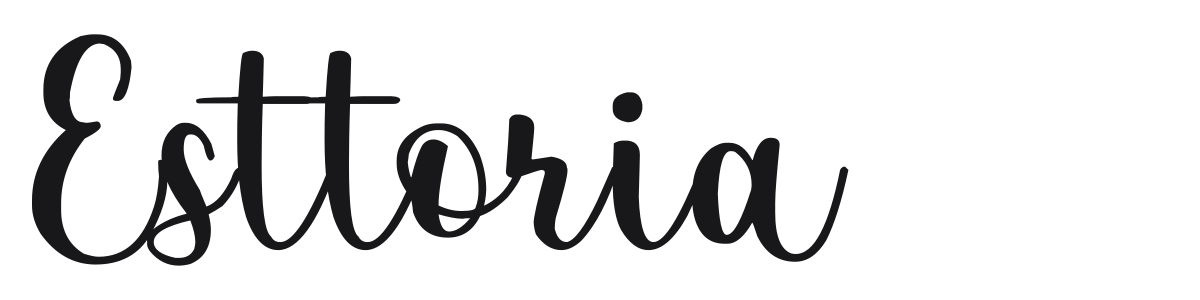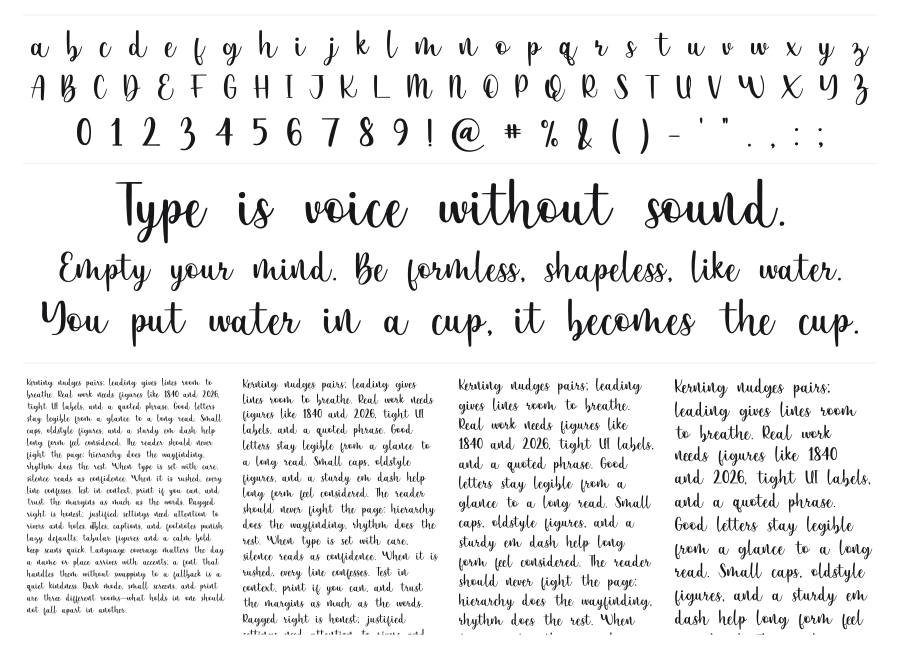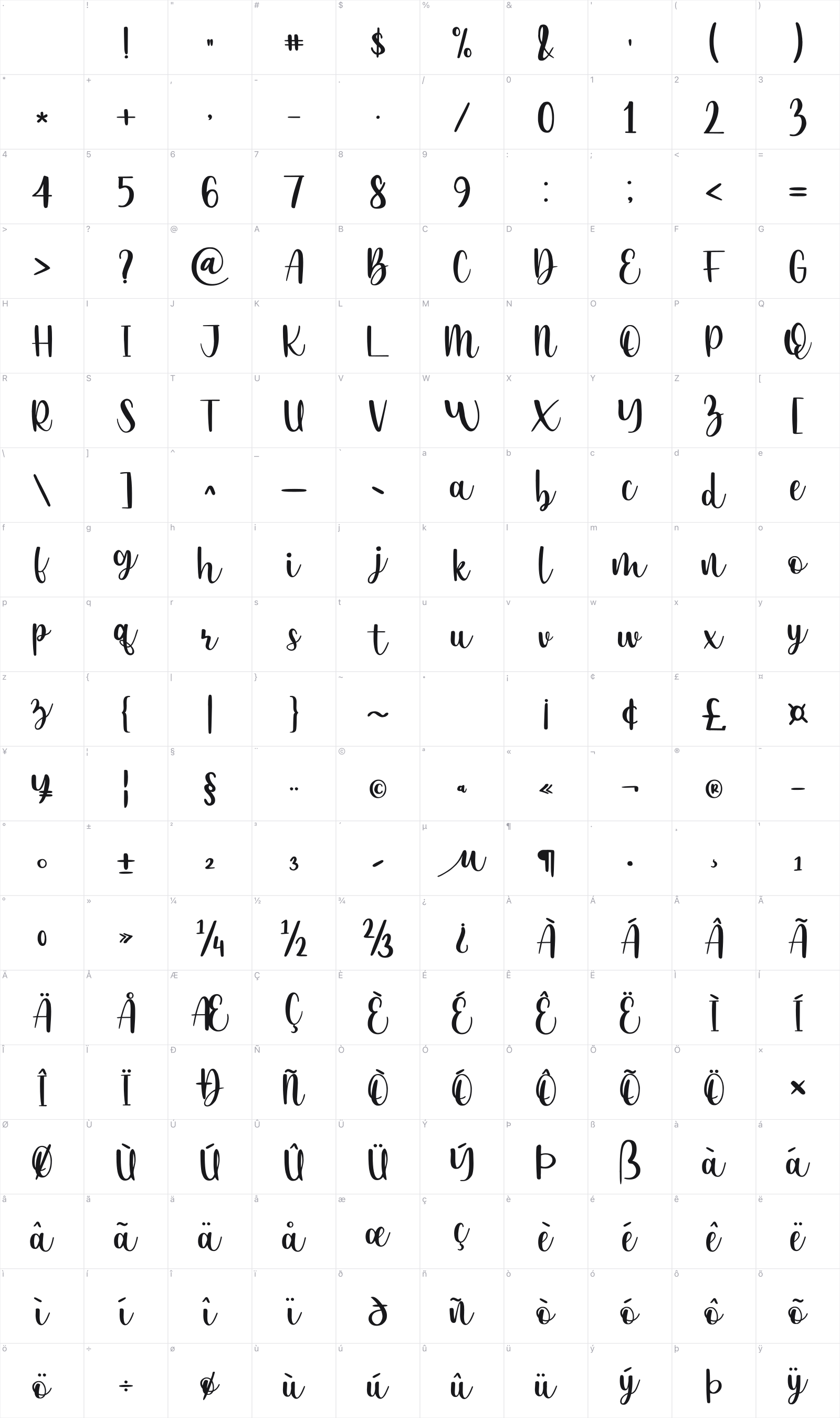
Esttoria
Esttoria is a lively casual script with bouncing letterforms and smooth, looping connectors that give it a natural handwritten feel. The moderate stroke contrast and generous curves keep it warm and approachable without tipping into overly formal calligraphy territory. It works well wherever a personal, crafted touch is needed: packaging, social media graphics, wedding stationery, and brand logos.